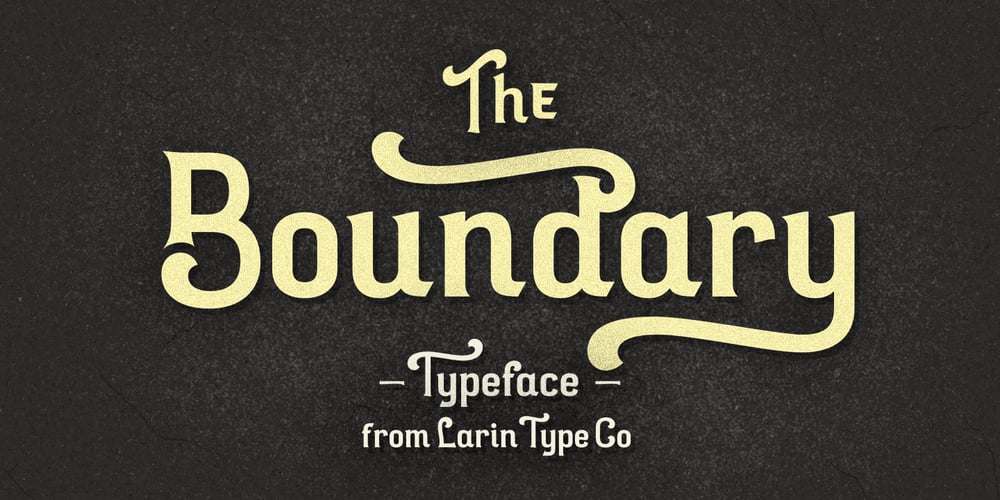
Boundary Font Family was designed by Pavel Larin and published by Larin Type Co. Boundary contains 2 styles and family package options. Boundary This is a vintage display font inspired by signage, logos in the style of the old time. This is a great find for creating logos, various kinds of designs in vintage style.This font includes 2 font styles: regular and rough style, also it includes alternates for uppercase and lowercase. Try changing them and see how diverse it can be.Font includes: Full alphabet A-z Numbers, fractions Punctuation and symbols Alternates for Uppercase Alternates for Lowercase